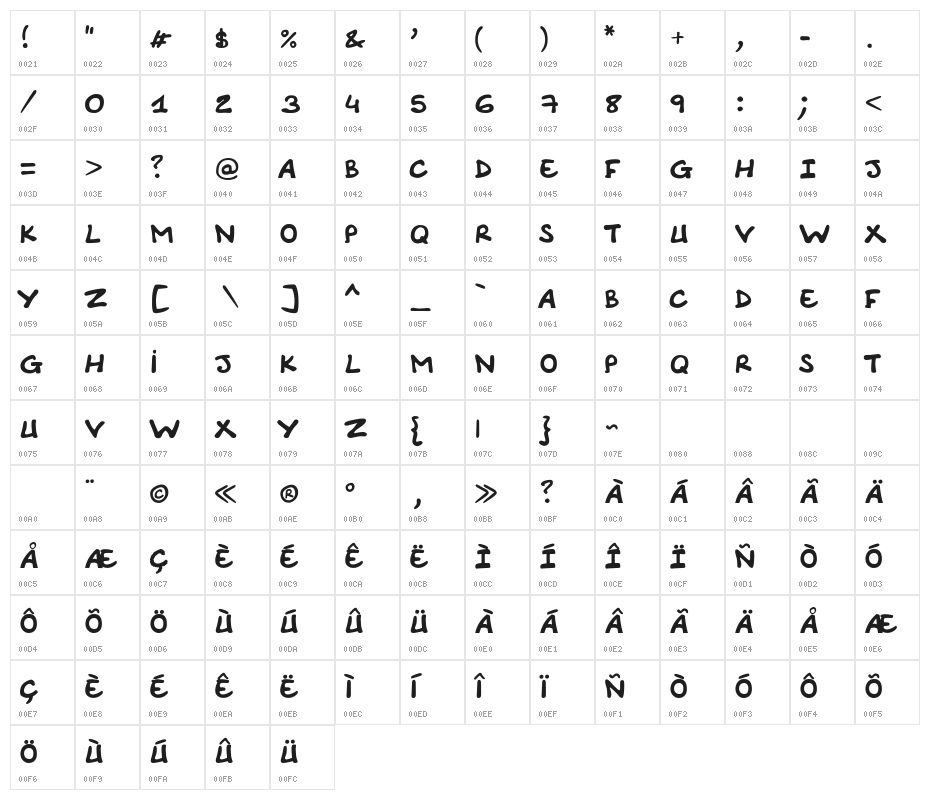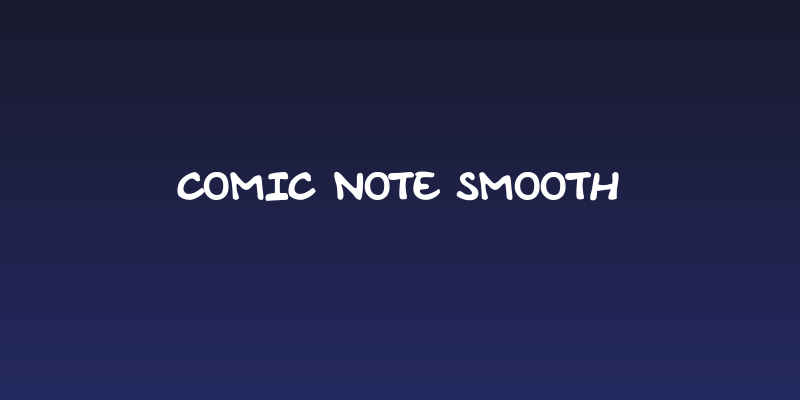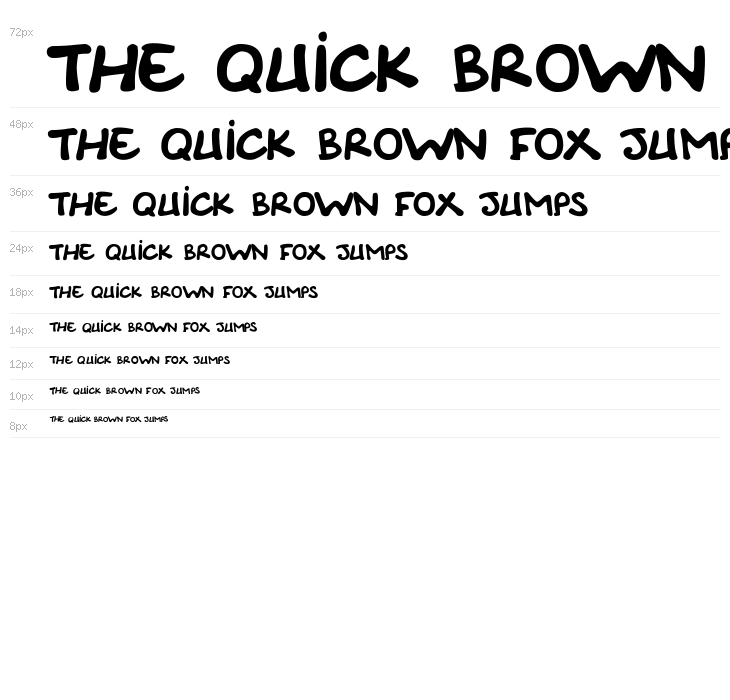
Comic Note Smooth Font
This playful and informal font features rounded, smooth edges and a handwritten style that evokes a sense of fun and creativity. The characters are bold and slightly irregular, giving them a casual, friendly appearance. The font is highly legible, with each letter distinct and easily recognizable. It includes a full set of uppercase and lowercase letters, numbers, and a variety of special characters, making it versatile for different uses. The overall look is reminiscent of comic book lettering, which adds a whimsical touch to any project.
| Overall Style | Playful |
| Use Case | Headlines, Logos, Informal Text |
| Proposed Projects | Ideal for comic books, children's books, playful branding, greeting cards, and informal invitations. |